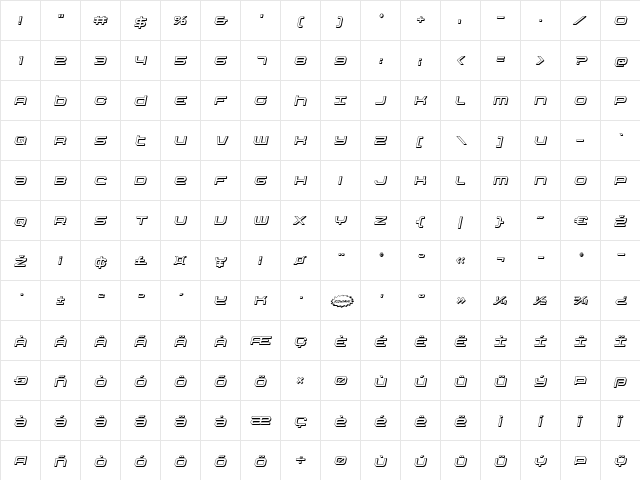
Nextwave 3D Italic Italic
Design Context for Nextwave 3D Italic Typeface
Nextwave 3D Italic is a composed and adaptable typeface that performs quietly and consistently across a wide range of design contexts. Its italic angle brings a sense of urgency and motion to the letterforms.
Pro Tip: Use Nextwave 3D Italic for emphasis, pull quotes, and subheadings where its slanted energy can add rhythm to the layout.